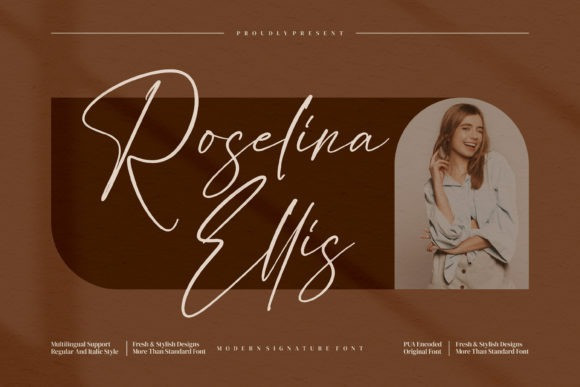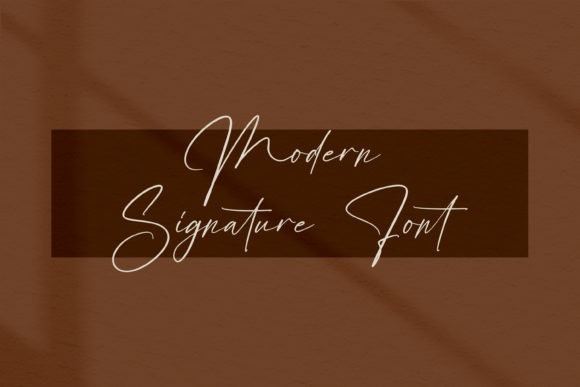
Roselina Ellis Handwritten Font
Roselina Ellis is a chic, refined script font that emanates sophistication and elegance. Its stylish alternates and ligatures make this font the perfect match for any project.